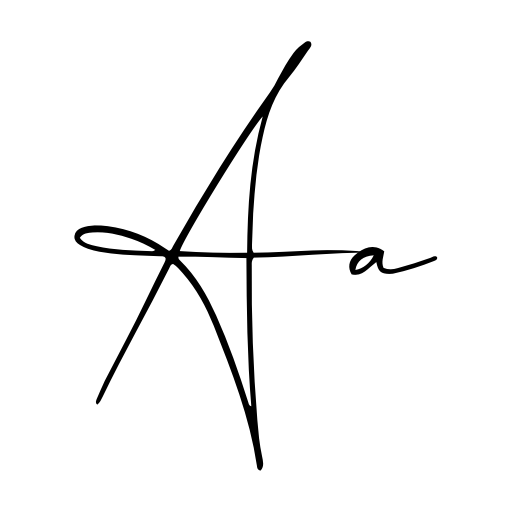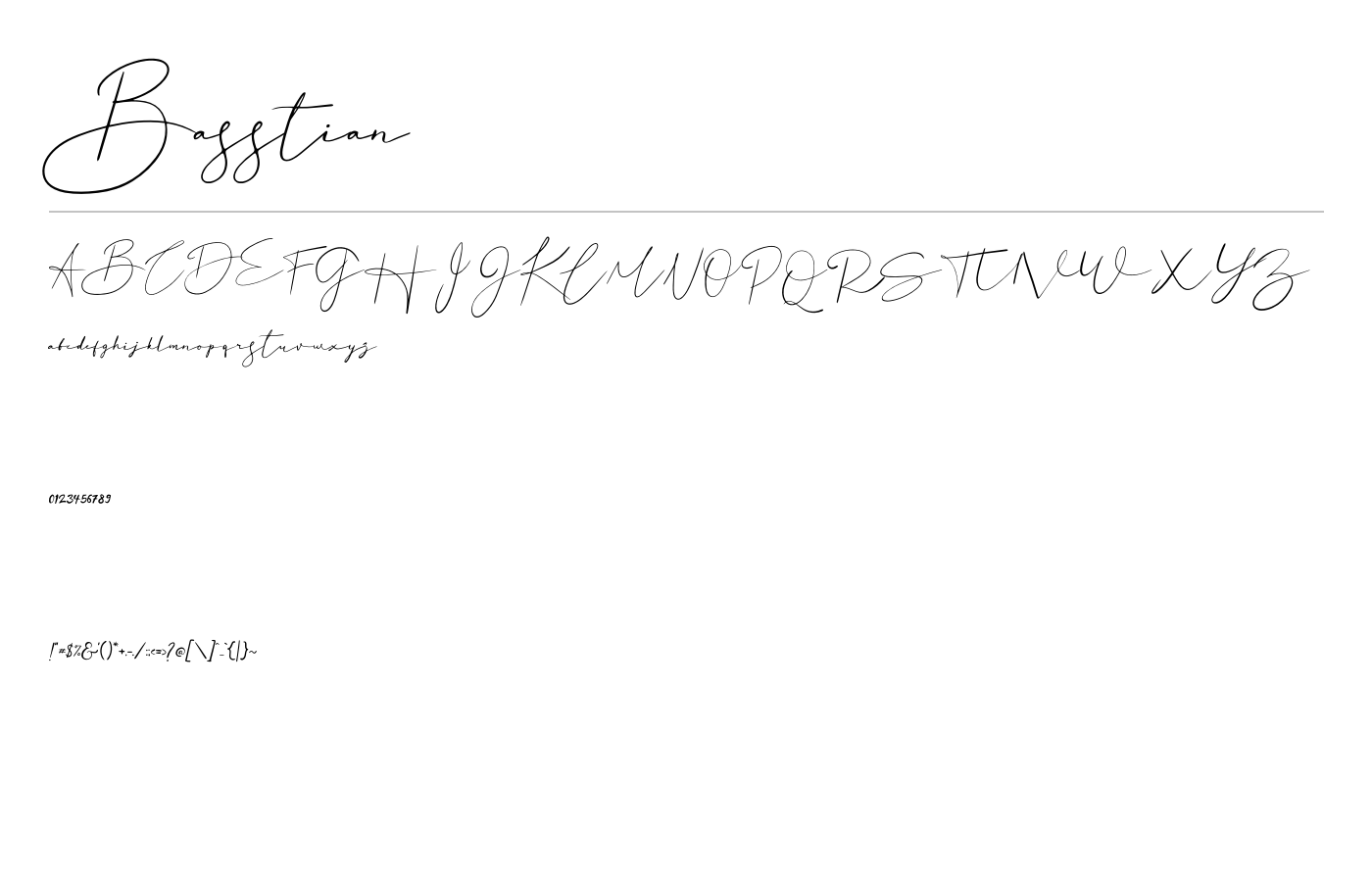
Basstian is a delicate, elegant handwritten script font characterized by its thin, fluid strokes and graceful curves that give it a sophisticated and artistic feel. Its light weight and airy letterforms make it perfect for personal branding, invitations, and luxury or creative projects where a soft, refined touch is desired. This font works wonderfully in designs that need an intimate, stylish, and modern handwritten vibe to convey charm and elegance.
Basstian Font